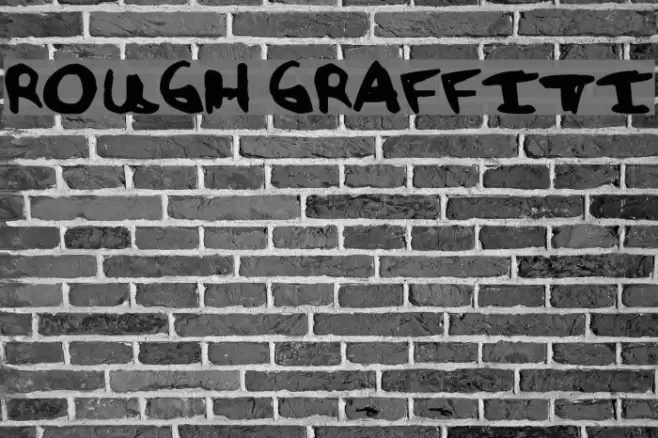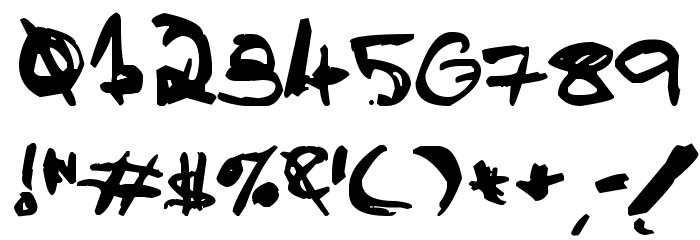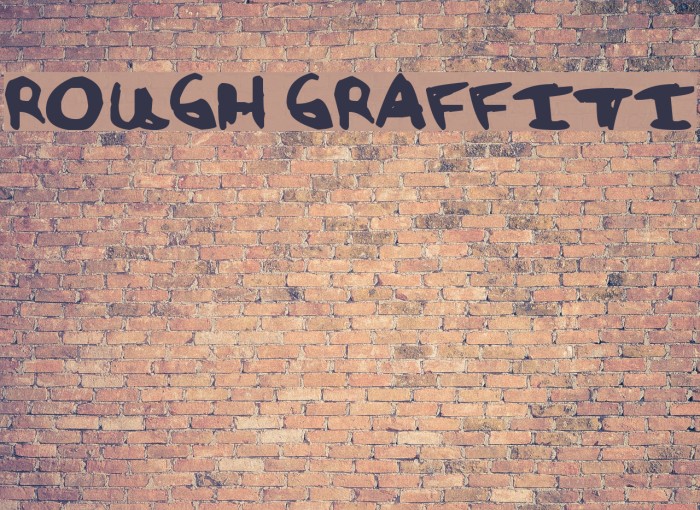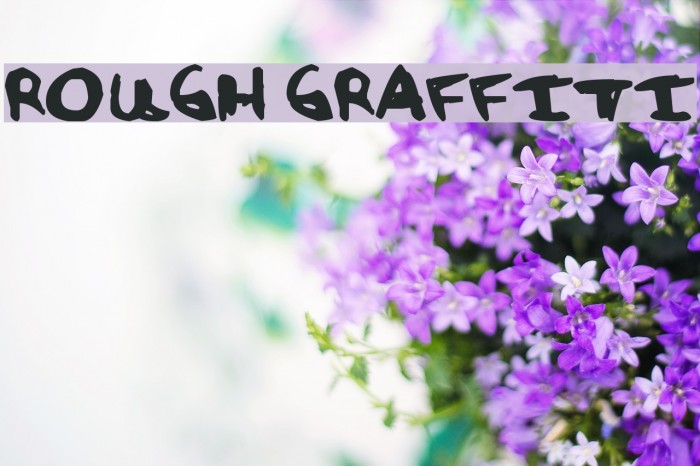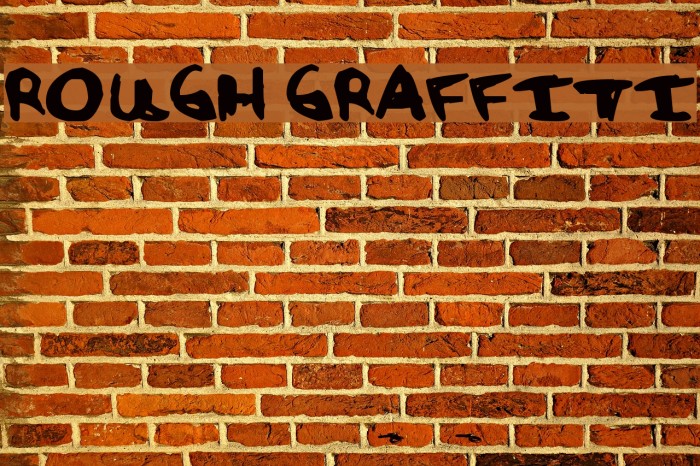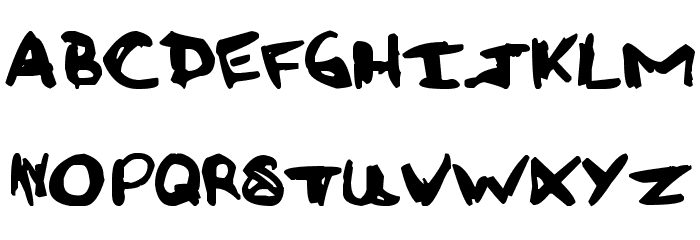
Rough Graffiti Font
Rough Graffiti Description
This font embodies a raw, urban aesthetic reminiscent of street art and graffiti. The characters are bold and dynamic, with a hand-painted appearance that suggests movement and energy. Each letter is uniquely crafted, featuring irregular edges and varying stroke widths that contribute to its edgy, rebellious vibe. The font captures the essence of spontaneous creativity, making it ideal for projects that aim to convey a sense of authenticity and individuality. Its rough texture and uneven baseline add to its charm, making it stand out in any design context.
A bold, graffiti-inspired font with a raw, hand-painted look from Uncategorized fonts.
- Proposed Projects: Ideal for street art-themed designs, music album covers, urban fashion branding, and edgy poster designs.
- Overall Style: Urban, Edgy, Artistic